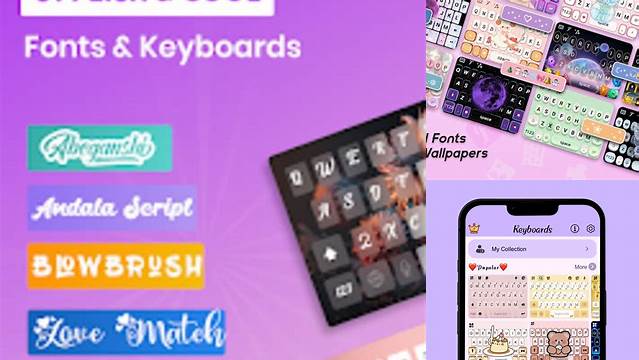
1. Unleashing Your Inner Artist: Free Cool Fonts for Android
Let's kick things off with cool fonts. Your phone's default font can be, well, a bit bland. The good news is, Android makes it super easy to swap things out and inject some serious style into your texts, emails, and social media posts. There are tons of apps out there that offer a huge selection of free fonts. Think about the vibe you're going for – are you feeling playful and quirky? Or maybe something sleek and modern? Once you've downloaded a font app, browsing through the options is usually a breeze. You can preview how each font will look with your own text, so you can find the perfect match for your personality. The best part? Switching fonts is usually just a few taps away in your phone's settings. So, ditch the boring defaults and get ready to express yourself with a font that truly screams you!
2. Keyboard Customization 101: Free Keyboard Themes for iOS
Okay, Apple lovers, I haven’t forgotten about you. While iOS might be a bit more restrictive than Android when it comes to system-wide font changes, you can still totally transform your typing experience with keyboard themes. And guess what? There are plenty of free options available. These themes can change everything from the color scheme and button styles to the sounds your keyboard makes when you type. Want a keyboard that looks like it's straight out of a cyberpunk movie? Or maybe one that's covered in adorable kittens? The possibilities are endless. To get started, head to the App Store and search for "free keyboard themes." Once you've found one you like, download it and follow the instructions to enable it in your keyboard settings. Trust me, a new keyboard theme can make typing feel like a whole new experience.
3. The Ultimate Guide to Finding Free Fonts Online
Looking for even more options for cool fonts? The internet is your oyster, guys. There are tons of websites that offer free fonts for download. But a word of caution: always make sure you're downloading from a reputable source to avoid any sketchy files. Look for sites that are well-established and have good reviews. Many of these sites offer a wide variety of font styles, from classic serifs to trendy display fonts. Once you've downloaded a font, you'll usually need to install it on your computer. The process varies depending on your operating system, but it's usually pretty straightforward. Once the font is installed, you can use it in all sorts of programs, like word processors, graphic design software, and more. This is perfect if you are looking for some really nice fonts for your keyboard themes.
4. Keyboard Themes: Beyond the Basics for free
So, you've downloaded a few keyboard themes – awesome! But did you know you can often customize them even further? Many keyboard apps allow you to tweak things like the key height, the spacing between keys, and even the font used on the keys themselves. This lets you create a keyboard that's not only visually appealing but also super comfortable to use. Some apps even let you add your own custom backgrounds, so you can have a picture of your pet, your favorite vacation spot, or anything else you can imagine staring back at you every time you type. The key is to experiment and find what works best for you. After all, your keyboard is your personal space, so make it your own.
5. Cool Fonts and Accessibility: Making the Right Choice
While cool fonts can add a lot of personality to your device, it's important to choose fonts that are also easy to read. Some fonts, especially those that are heavily stylized, can be difficult to decipher, especially for people with visual impairments. When choosing a font, consider things like the font's weight, its kerning (the spacing between letters), and its x-height (the height of the lowercase letters). Fonts with a good contrast between the text and the background are also easier to read. If you're not sure whether a font is accessible, try testing it out with a few different people and see what they think. Ultimately, the best font is one that looks good and is easy for everyone to read.
6. The Psychology of Fonts: Choosing the Right Vibe
Did you know that cool fonts can actually influence how people perceive your messages? It's true! Different fonts evoke different emotions and associations. For example, a bold, sans-serif font might convey a sense of confidence and authority, while a whimsical, handwritten font might feel more friendly and approachable. Think about the message you're trying to send and choose a font that aligns with that message. If you're writing a formal email, you'll probably want to stick with a classic serif font like Times New Roman or Garamond. But if you're posting on social media, you can afford to be a bit more playful and experiment with different styles. The right font can help you communicate your message more effectively and make a lasting impression.
7. Free Font Resources for Designers and Creatives
Hey designers! Looking for some awesome cool fonts for your next project? There are tons of free font resources out there that offer high-quality fonts for commercial use. Sites like Google Fonts, Font Squirrel, and DaFont offer a wide selection of fonts that are free to download and use in your designs. When using free fonts in commercial projects, it's important to double-check the license to make sure you're allowed to use the font in the way you intend to. Some fonts may have restrictions on how they can be used, such as requiring attribution or prohibiting use in certain types of projects. But with a little research, you can find tons of free fonts that are perfect for your next design masterpiece.
8. Keyboard Shortcuts: Mastering Your Device
Okay, this might seem a little off-topic, but hear me out. Mastering keyboard shortcuts can actually enhance your experience with cool fonts and themes. Think about it: the faster you can navigate your device, the more time you'll have to experiment with different fonts and themes. Learn the basic shortcuts for copying and pasting, selecting text, and opening new windows. You'll be surprised how much time you can save. And who knows, you might even discover some hidden shortcuts that make your life even easier.
9. The Future of Fonts: What's Next?
The world of cool fonts is constantly evolving. New fonts are being created every day, and new technologies are making it easier than ever to customize your typography. One trend to watch is variable fonts, which allow you to adjust the weight, width, and other characteristics of a font on the fly. This gives designers more control over their typography and allows them to create more dynamic and engaging designs. Another trend is the rise of AI-powered font design tools, which can help you create custom fonts in minutes. As technology continues to advance, the possibilities for fonts are endless.
10. Cool fonts, Keyboard Themes and Productivity
Believe it or not, cool fonts and keyboard themes can actually boost your productivity. When your device looks and feels good, you're more likely to enjoy using it. And when you enjoy using your device, you're more likely to be productive. Choose a font and theme that inspire you and make you feel good. You might be surprised at the difference it makes.
11. Free Keyboard Themes for Gamers
Level up your gaming experience with free keyboard themes designed specifically for gamers! These themes often feature vibrant colors, bold designs, and even animated effects. Some gaming keyboards even have customizable backlighting that can sync with the action on screen. Whether you're a casual gamer or a hardcore competitor, a gaming keyboard theme can help you immerse yourself in the game and take your skills to the next level.
12. Making a Statement with Cool fonts for Social Media
Stand out from the crowd on social media with cool fonts! Use a unique font to add personality to your posts, captions, and profile bio. Just be sure to choose a font that's easy to read and doesn't clash with the overall design of your profile. A well-chosen font can help you grab attention and make a lasting impression on your followers.
13. Cool fonts and Branding: Maintaining Consistency
If you're using cool fonts for branding purposes, it's important to maintain consistency across all of your materials. Use the same font on your website, social media profiles, and marketing materials to create a cohesive brand identity. This will help people recognize your brand and build trust with your audience.
14. The Art of Typography: Understanding the Basics
Want to learn more about cool fonts and typography? Start by understanding the basic elements of typography, such as font families, serifs, and kerning. Learn how to choose fonts that are appropriate for different purposes and how to combine fonts effectively. With a little knowledge, you can create beautiful and professional-looking designs.
15. Custom Keyboard Themes: DIY Design
Get creative and design your own custom keyboard themes! Many keyboard apps allow you to upload your own images and create personalized themes. Use your favorite photos, patterns, or colors to create a keyboard that's truly unique to you. The possibilities are endless!
16. Exploring Different Font Styles: Serif vs. Sans-Serif
Delve into the world of cool fonts by exploring the difference between serif and sans-serif fonts. Serif fonts have small decorative strokes at the end of each letter, while sans-serif fonts do not. Serif fonts are often used for formal documents and body text, while sans-serif fonts are often used for headings and logos. Experiment with different styles to find what works best for your project.
17. Cool fonts and Readability: Best Practices
Ensure your cool fonts are readable by following best practices for typography. Choose fonts with good contrast, appropriate size, and clear spacing. Avoid using overly decorative or condensed fonts, as these can be difficult to read. Test your fonts on different devices and screen sizes to ensure they look good in all contexts.
18. Keyboard Themes and Emojis: Express Yourself
Enhance your keyboard themes with emojis! Emojis are a fun and expressive way to communicate online. Choose a keyboard theme that complements your favorite emojis and makes it easy to find the perfect emoji for every situation.
19. Cool fonts and Mobile Devices: Optimization Tips
Optimize your cool fonts for mobile devices by choosing fonts that are clear and legible on small screens. Avoid using overly complex or detailed fonts, as these can appear blurry or pixelated on mobile devices. Test your fonts on different devices to ensure they look good in all contexts.
20. Free Font Generators: Instant Design
Experiment with free font generators to create unique and eye-catching cool fonts in seconds! These online tools allow you to customize various parameters such as font style, size, color, and effects. Perfect for adding a personal touch to your social media posts, invitations, or graphic designs without any design skills required.
21. Discovering Vintage-Inspired Cool fonts
Transport your projects back in time with vintage-inspired cool fonts that evoke a sense of nostalgia and classic charm. Explore fonts reminiscent of old movie posters, retro signage, and antique documents to add character and authenticity to your designs.
22. The Impact of Cool fonts on User Experience
Understand how cool fonts influence user experience on websites and applications. Choose fonts that are not only visually appealing but also enhance readability, accessibility, and overall user engagement. A well-chosen font can significantly improve the usability and enjoyment of digital interfaces.
23. Creating a Harmonious Visual Hierarchy with Cool fonts
Master the art of creating a harmonious visual hierarchy using cool fonts of varying sizes, weights, and styles. Guide the viewer's eye through your design by strategically using fonts to emphasize important information and create a clear and organized layout.
24. Cool fonts and Cultural Sensitivity: Avoiding Misinterpretation
Be mindful of cultural sensitivity when selecting cool fonts for international audiences. Certain fonts may carry unintended cultural or historical associations that could be offensive or misinterpreted in different regions. Research and choose fonts that are appropriate and respectful for your target audience.
25. Free Font Pairing Strategies: A Guide to Combinations
Unlock the secrets of successful font pairing with free strategies that help you combine cool fonts effectively. Learn how to mix serif and sans-serif fonts, balance contrasting styles, and create visually appealing combinations that enhance the overall design aesthetic.
26. Accessing Cool fonts on Different Operating Systems
Explore the methods for accessing and installing cool fonts on various operating systems, including Windows, macOS, iOS, and Android. Understand the compatibility of different font formats and the steps required to add custom fonts to your device's system settings.
27. Cool fonts and SEO: Optimizing for Web Performance
Discover how cool fonts can impact your website's SEO and learn how to optimize them for web performance. Choose lightweight font formats, minimize the number of font files, and use font loading techniques to ensure fast page loading times and improved search engine rankings.
28. Exploring Geometric-Style Cool fonts
Dive into the world of geometric-style cool fonts characterized by their clean lines, precise shapes, and modern aesthetic. Experiment with these fonts to create sleek and contemporary designs that convey a sense of sophistication and minimalism.
29. Cool fonts and Dynamic Typography: Animation Effects
Add movement and visual interest to your designs with cool fonts and dynamic typography effects. Explore techniques such as font animations, text transitions, and kinetic typography to create engaging and interactive experiences that capture the viewer's attention.
30. Free Resources for Learning About Cool fonts
Enhance your knowledge of cool fonts with free online resources such as tutorials, articles, and design communities. Stay updated on the latest trends, techniques, and best practices for using fonts effectively in your designs.